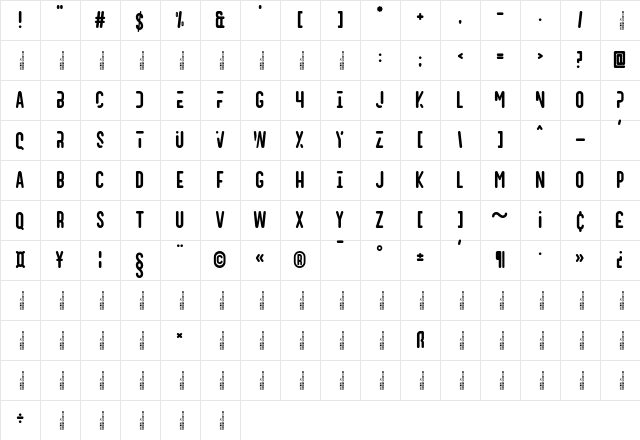
Argio Regular
Design Context for Argio Typeface
Argio takes a measured approach to typography — its balanced proportions and neutral character make it a reliable workhorse for both digital and print work.